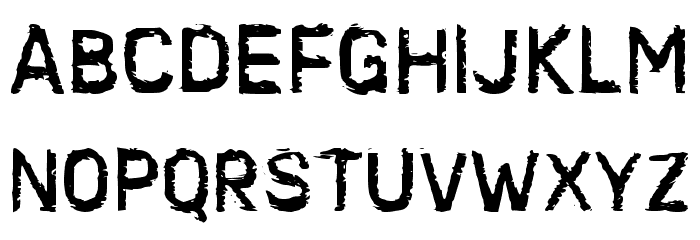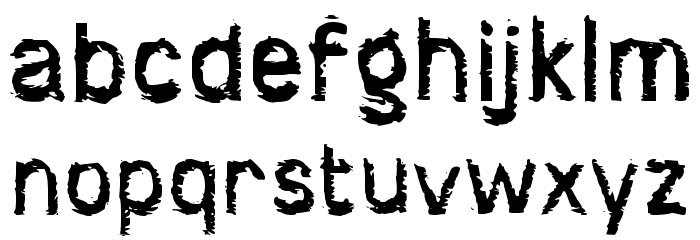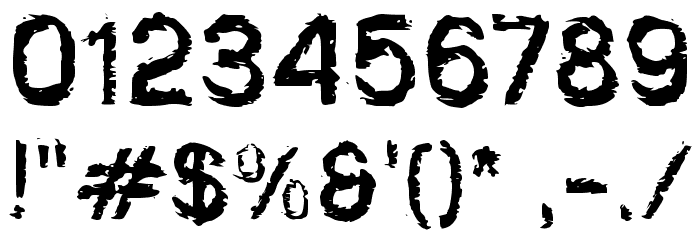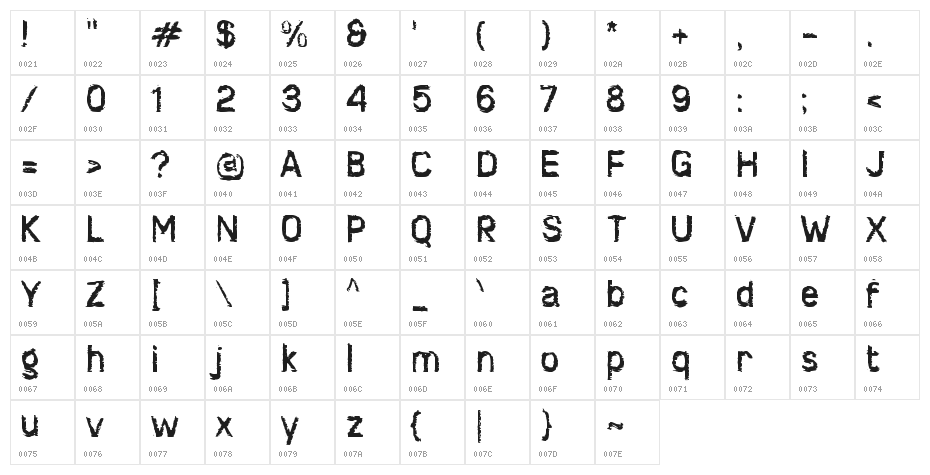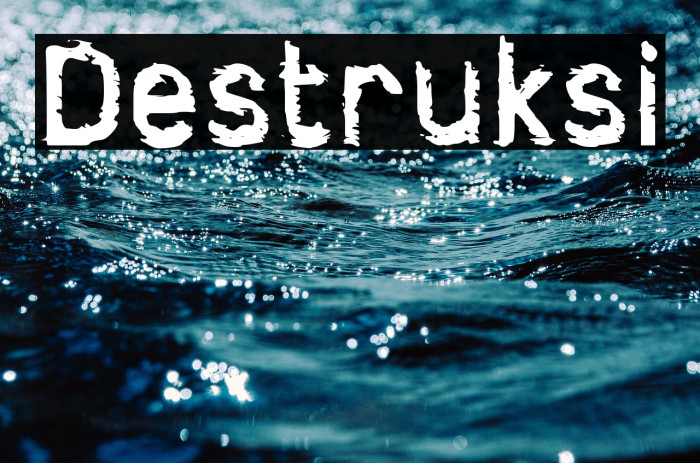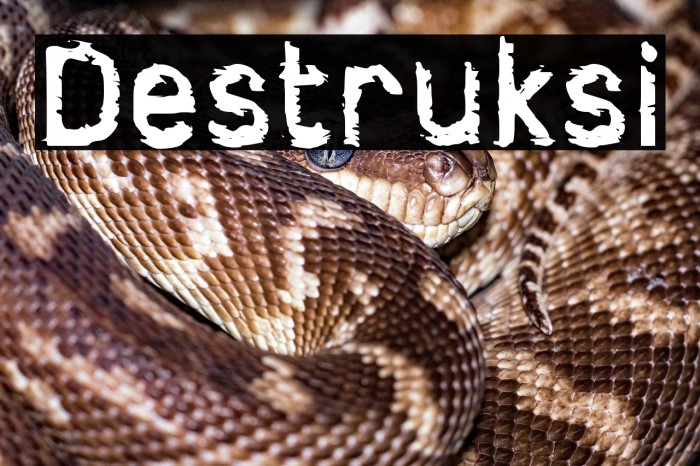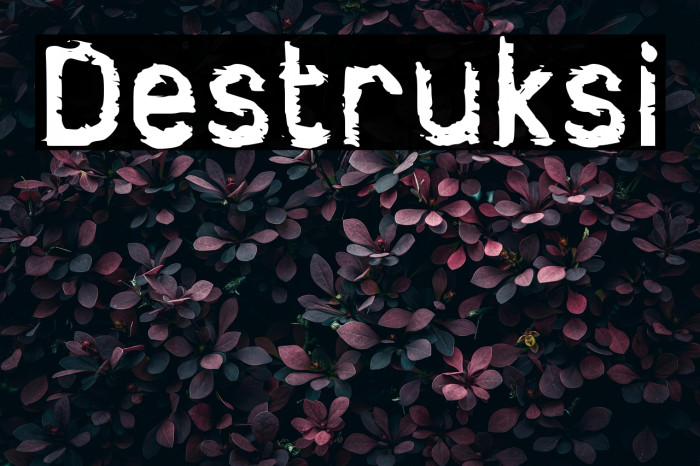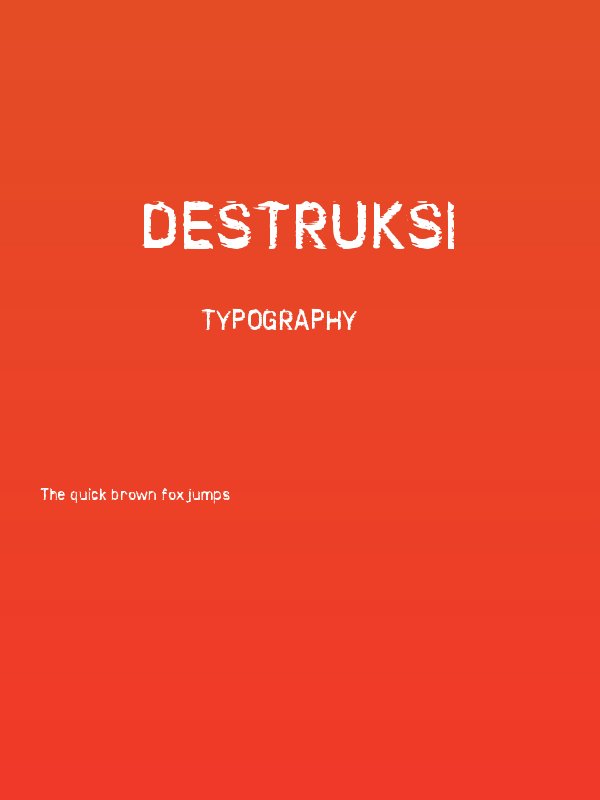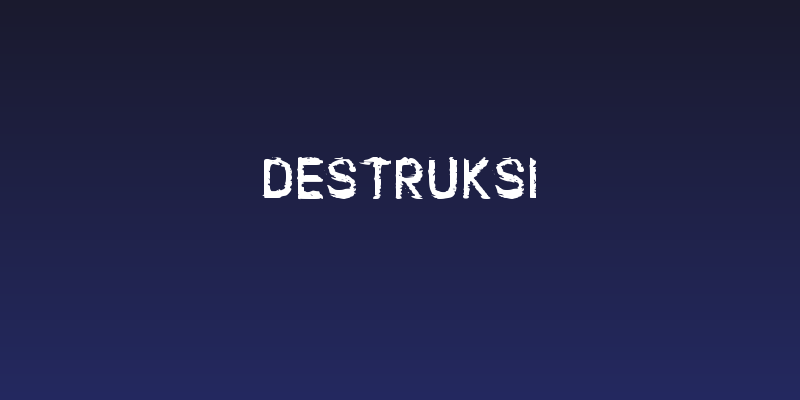
Destruksi Font
This font features a distressed and grungy style, characterized by rough, uneven edges and a textured appearance. The letters have a bold presence, with each character appearing as if it has been weathered or eroded over time. The uppercase and lowercase letters maintain a consistent style, with the numbers and special characters following suit. This font evokes a sense of rawness and edginess, making it suitable for designs that aim to convey a rugged or rebellious aesthetic.
A bold, distressed font with a grungy, textured appearance.
- Font: Destruksi
- Proposed Projects: Ideal for album covers, posters, streetwear branding, or any project seeking a gritty, urban look.
- Overall Style: Grunge, Urban, Edgy